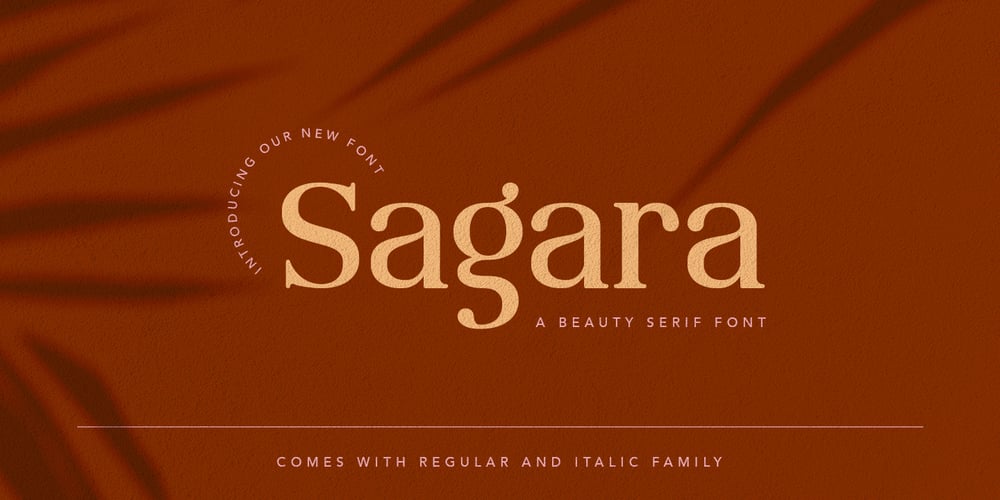
Sagara
Sagara font
Sagara Font Family was designed by Tri Kuncoro, Ahmad Syarif Afandi and published by Peterdraw. Sagara contains 2 styles and family package options. Sagara is a beautiful, minimalist, elegant and modern vintage font with a regular and italic styles and comes with multilingual support.Sagara is perfect for branding projects, logo, wedding designs, social media posts, advertisements, quoted text, coffee shop, product packaging, product designs, label, photography, watermark, invitation, stationery, fashion, boutique, furniture, and any projects, it makes with a high level of legibility. It’s also a perfect fit for a beauty-themed – or a stylish text overlay to any background image.Main Features: Uppercase & Lowercase letters Numbering and Punctuation Regular and Italic Accented characters Wish you enjoy our font and please don’t hesitate to drop me a message if you have any issues or queries. Thank you for visiting our item. Hope you like it! :)Best.